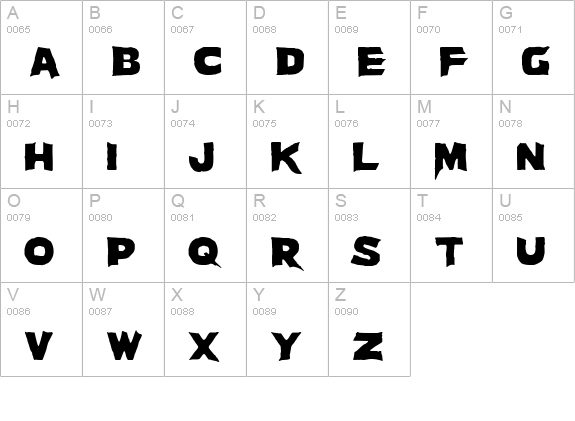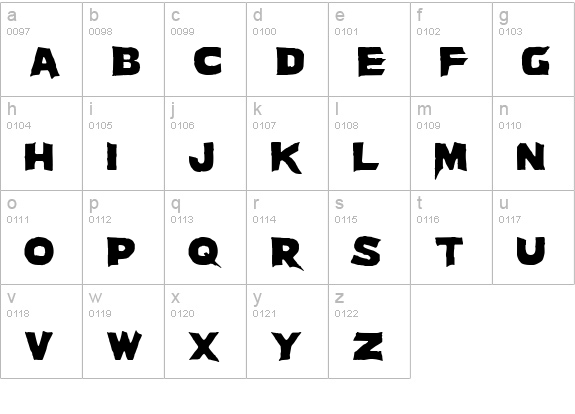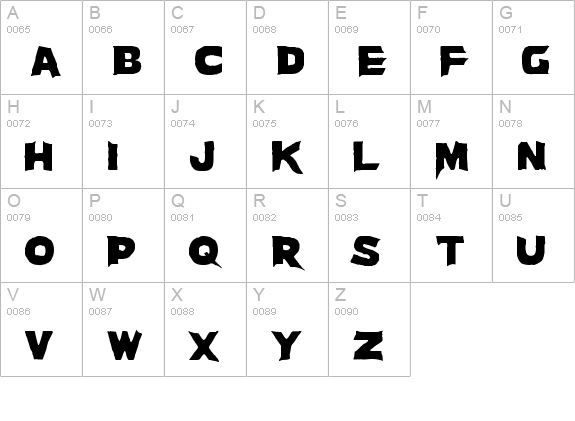
Introducing Massacre Font, a striking and dramatic typeface that exudes power and intensity. With its sharp edges and bold letterforms, Massacre Font commands attention and leaves a lasting impression. This font is perfect for projects that require a strong and impactful visual presence, such as movie posters, book covers, or album artwork. But what sets Massacre Font apart is not just its visually compelling design, but also the fact that it is available for free. Yes, you read that right! Massacre Font can be freely downloaded at FontsMarket.com, providing designers and creatives with an incredible opportunity to elevate their projects without breaking the bank. Whether you're working on a personal project or a professional assignment, Massacre Font offers endless possibilities. Its versatility allows it to be used in a variety of contexts, from edgy and dark designs to bold and adventurous concepts. Its wide range of glyphs and characters ensures that every word and message you create will be delivered with maximum impact. Massacre Font is the perfect choice for those who dare to be different, who want to push the boundaries of design and make a statement. Its unique combination of elegance and rawness creates a captivating and unforgettable visual experience. So why wait? Download Massacre Font for free today at FontsMarket.com and unleash your creativity like never before. Give your designs the edge they deserve and create a lasting impression with this extraordinary typeface.